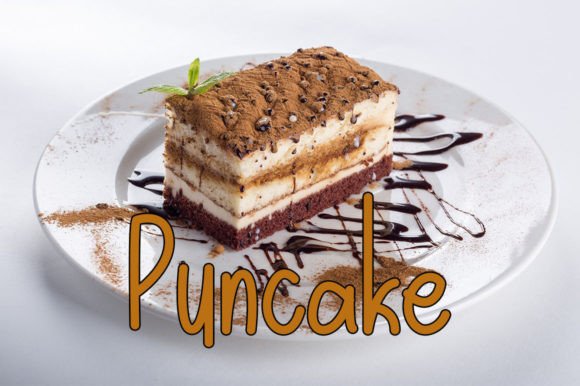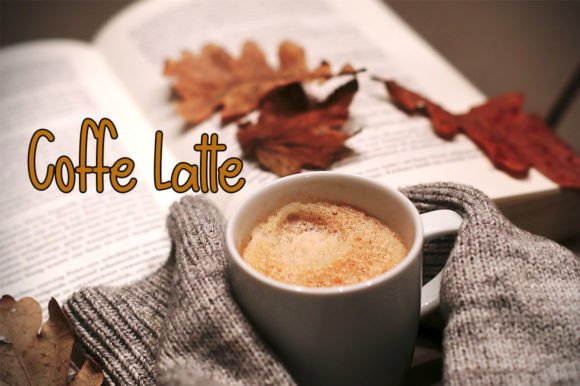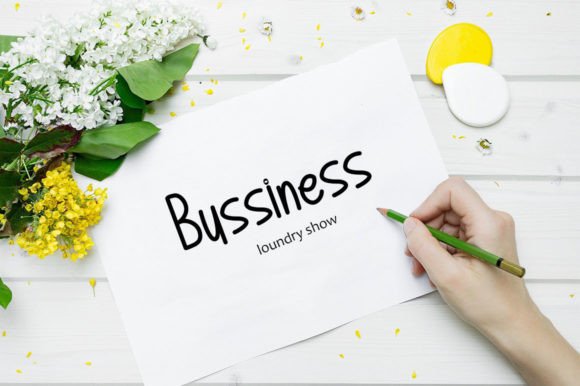
Introduction to Handmate Font
Do you remember that moment when you stumbled upon the perfect font for a creative project, and everything just clicked into place? For designers, finding the right font can make all the difference between a mediocre design and a truly breathtaking one. And, trust us, we’ve found one that’s sure to become your new go-to: the Handmate Font.
This delightful handwritten font is not just a pretty face – it’s a high-quality design resource that’s perfect for a wide range of creative projects. From crafting custom greeting cards to designing presentations, Handmate Font is a versatile choice that’s sure to elevate your work. And, the best part? It’s available for free download, making it a valuable addition to any designer’s toolkit.
With its transparent background and friendly, approachable feel, Handmate Font is a design resource that’s hard to resist. Whether you’re a seasoned pro or just starting out, this font is sure to become a trusted companion for all your creative endeavors.
Key Features of Handmate Font
- High-quality, hand-drawn design ideal for creative projects, offering a unique touch.
- Transparent background, making it easy to use in various design scenarios.
- Includes 6 styles, each with its own distinct characteristics, allowing for versatility in design applications.
- Designed with a resolution of 1024 x 1024 pixels, ensuring crisp and clear typography.
- Perfect for use in various design projects, including logos, typography, and creative graphics.
Honest Review: Handmate Font
I recently stumbled upon the Handmate Font while searching for a high quality design resource for a creative project. As a designer, I appreciate fonts that are both functional and visually appealing, and Handmate Font does not disappoint.
- ✨ Unique and modern aesthetic, perfect for modern designs
- ✨ Transparent background, making it easy to customize and combine with other fonts
- ⚠️ Limited character set, which may not be suitable for complex text-heavy designs
- ⚠️ Not suitable for small text sizes, as the font may become difficult to read
Overall, I’m impressed with the Handmate Font and would definitely recommend it for designers looking for a modern and versatile font. While it may have some limitations, it’s a great resource for creative projects and can be a valuable addition to any designer’s toolkit.
Tips for Getting the Most Out of Handmate Font
For optimal results, use Handmate Font in combination with other design elements to create a cohesive look. Experiment with different font sizes, colors, and styles to achieve the desired effect. You can also use the font as a design resource for creating custom graphics and illustrations.
Handmate Font is suitable for a variety of creative projects, including graphics, illustrations, presentations, and documents. Its high-quality design and transparent background make it ideal for creating visually appealing text effects and overlays.